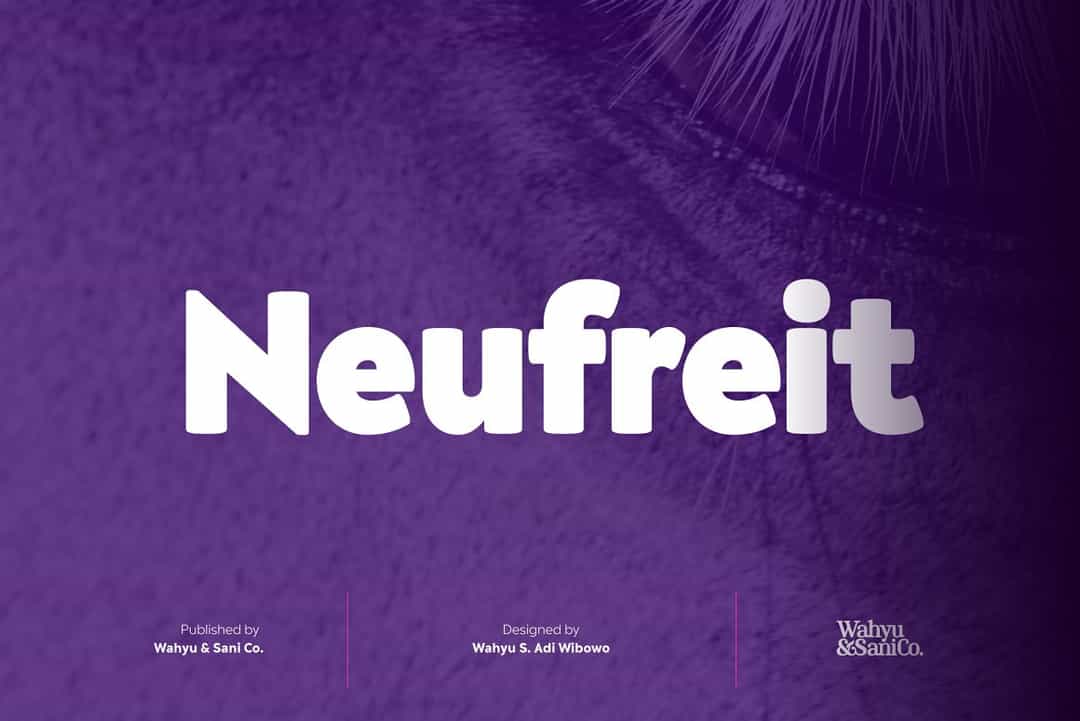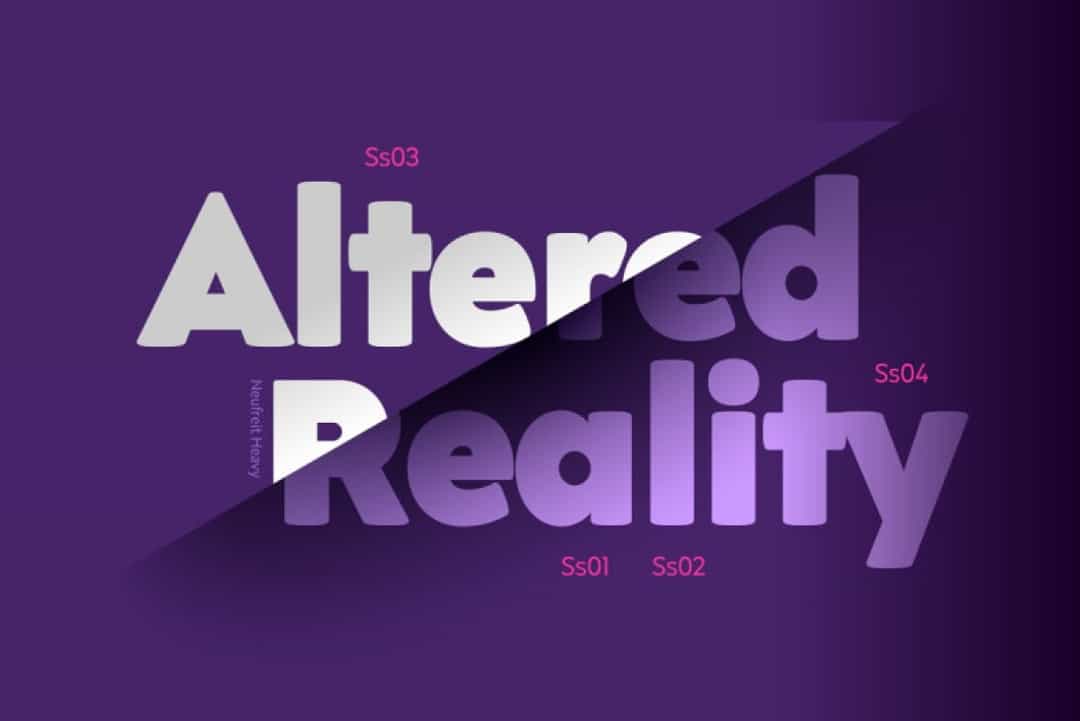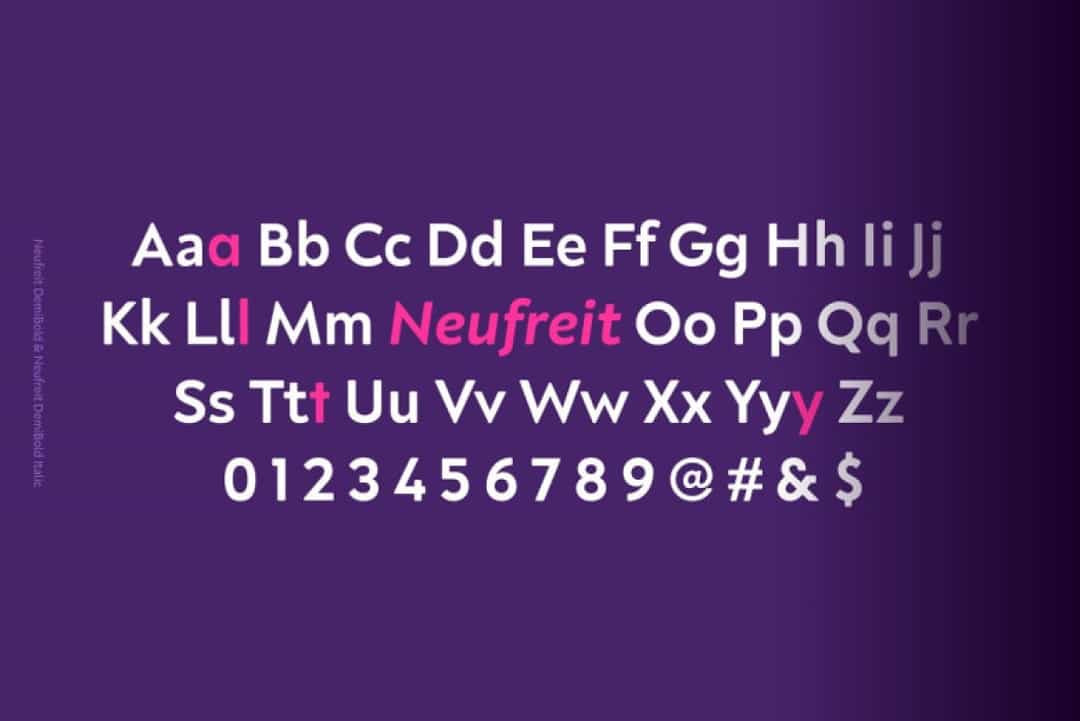
Neufreit Sans Serif Font is the younger brother of Creo, more refined and with softer proportions, sharper apexes and vertices and nine weights with matching italics from Extra Light to Heavy. Every weight includes OpenType features like Superiors, Ordinals, and Stylistic Sets as well as Tabular Figures, Standard Ligatures, Fractions, Numerators, and Denominators with more than 500 characters that support Western and Eastern European languages and more than 200 Latin-based and Latin-related languages!